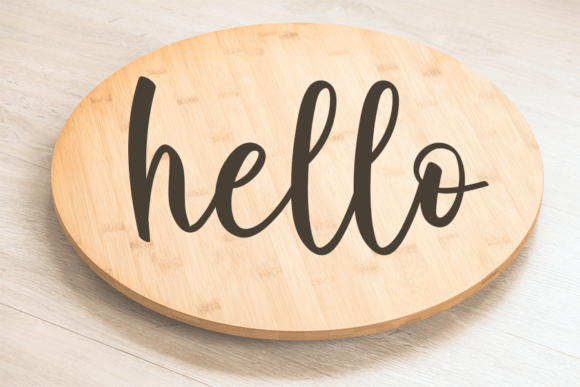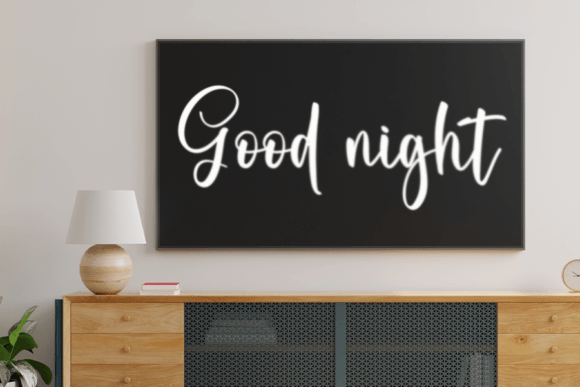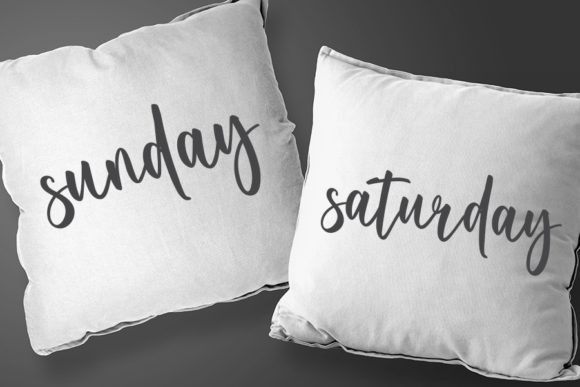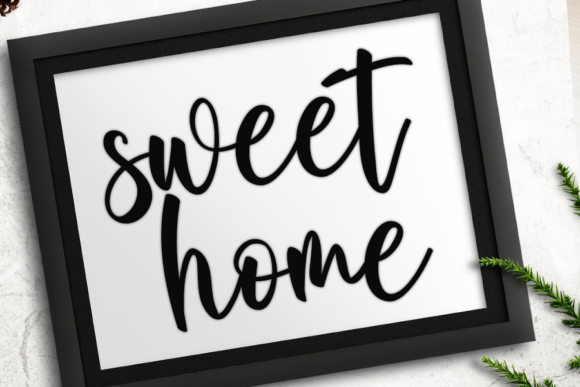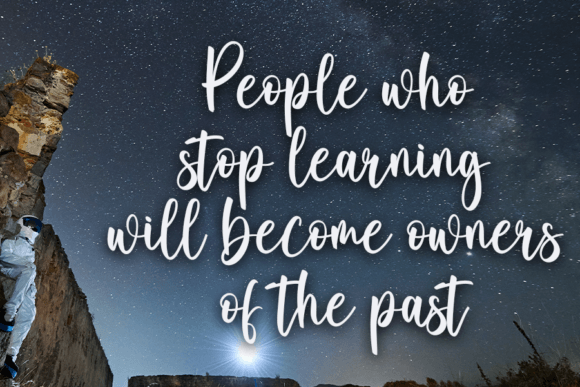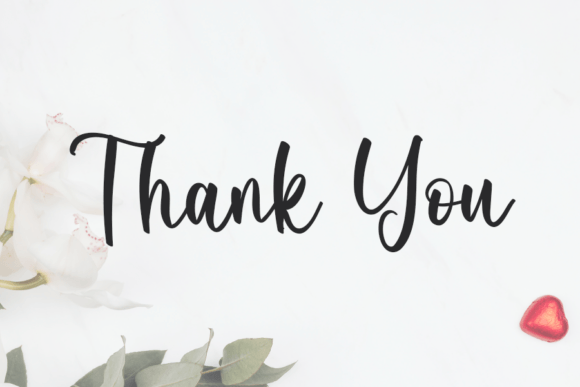
Bimbo Font: Elevate Your Designs with a Simple yet Quirky Handwritten Style
Are you on the hunt for a font that exudes elegance, modernity, and a dash of quirkiness? Look no further than the Bimbo Font! This simple yet captivating handwritten font is perfect for designers and crafters seeking to add a touch of sophistication to their projects. In this article, we’ll dive into the world of Bimbo Font, exploring its features, uses, and benefits.
What is Bimbo Font?
Bimbo Font is a beautifully crafted handwritten font that boasts a classy, elegant, and modern aesthetic. Its simplicity is its greatest strength, making it versatile enough to be used in a wide range of design applications. Whether you’re creating logos, branding materials, invitations, stationery, wedding designs, social media posts, or more, Bimbo Font is sure to make a lasting impression.
Key Features of Bimbo Font
• Simple and Quirky: Bimbo Font strikes the perfect balance between simplicity and playfulness, making it perfect for designs that require a touch of whimsy.
• Elegant and Modern: With its clean lines and flowing curves, Bimbo Font exudes a sense of sophistication and modernity.
• Handwritten: The font’s handwritten nature adds a personal touch to your designs, making them more approachable and relatable.
• Versatile: Bimbo Font can be used in a variety of design applications, from logos and branding to invitations and social media posts.
Uses of Bimbo Font
Bimbo Font’s versatility is one of its greatest assets. Here are some of the many ways you can use this amazing font:
• Logos and Branding: Create a lasting impression with a custom logo or branding materials that showcase your unique identity.
• Invitations and Stationery: Add a touch of elegance to your invitations, greeting cards, and stationery with Bimbo Font.
• Wedding Designs: Make your wedding designs truly special with Bimbo Font’s romantic and whimsical feel.
• Social Media Posts: Elevate your social media presence with eye-catching posts and stories that showcase your brand’s personality.
Benefits of Using Bimbo Font
So, why choose Bimbo Font for your design projects? Here are just a few benefits:
• Unique and Memorable: Bimbo Font’s quirky yet elegant design ensures that your projects will stand out from the crowd.
• Easy to Read: The font’s clean lines and simple design make it easy to read, even at smaller sizes.
• Customizable: Bimbo Font can be easily customized to fit your brand’s unique style and personality.
• Time-Saving: With Bimbo Font, you can create stunning designs in no time, saving you hours of design time.
Tips for Using Bimbo Font
To get the most out of Bimbo Font, here are a few tips to keep in mind:
• Experiment with Colors: Bimbo Font looks great in a variety of colors, so don’t be afraid to experiment and find the perfect hue for your design.
• Mix and Match: Combine Bimbo Font with other fonts to create a unique and visually appealing design.
• Keep it Simple: Don’t overcomplicate your design – Bimbo Font’s simplicity is its greatest strength, so keep your design clean and elegant.
In conclusion, Bimbo Font is a versatile and captivating handwritten font that’s perfect for designers and crafters seeking to add a touch of elegance and whimsy to their projects. With its simple yet quirky design, Bimbo Font is sure to make a lasting impression. So why wait? Give Bimbo Font a try today and elevate your designs to the next level!